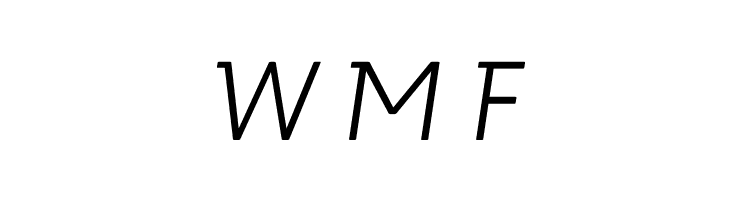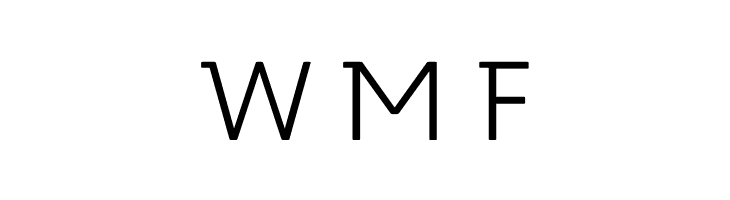
( 7NTypes - Situjuh Nazara - 7ntypes.com )
A playful, casual font with rounded edges and a slightly condensed form.
( 7NTypes - Situjuh Nazara - 7ntypes.com )
A modern, geometric light italic font with angular lines.
( Alan Prescott - prescottdesignshop.com )
A sleek, ultra-light font with a modern, minimalist design.
( Alan Prescott - prescottdesignshop.com )
A sleek, ultra-light, and modern font with a subtle slant and minimalistic design.
( Alan Prescott - prescottdesignshop.com )
A sleek, ultra-light font with a modern, geometric style.
( Antipixel - Julia Martínez Diana - www.antipixel.com.ar/ )
A light, handwritten-style font with thin strokes and a slight slant.
( Antipixel - Julia Martínez Diana - www.antipixel.com.ar/ )
A delicate, condensed, and light italic font with a graceful and dynamic appearance.
( Antipixel - Julia Martínez Diana - www.antipixel.com.ar/ )
A slender, condensed, and light font with an elegant and minimalistic design.
( Antipixel - Julia Martínez Diana - www.antipixel.com.ar/ )
A sleek, ultra-light, and condensed italic font with a modern and minimalist style.
( Antipixel - Julia Martínez Diana - www.antipixel.com.ar/ )
A light, italic serif font with elegant, elongated letters and subtle serifs.
( Antipixel - Julia Martínez Diana - www.antipixel.com.ar/ )
A light, italic serif font with a modern and elegant style.
( Antipixel - Julia Martínez Diana - www.antipixel.com.ar/ )
A light, slab serif font with elongated strokes and thin serifs.
( Antipixel - Julia Martínez Diana - www.antipixel.com.ar/ )
A light, elegant, and slightly italic font with a modern and fluid style.
( Anton Schilli - www.antonschilli.de )
A sleek, ultra-light, modern font with a geometric and minimalist design.
( Atle Mo - www.subtlepatterns.com/ )
An ultra-light, minimalist sans-serif font with thin, elegant strokes.
( Chen Yining )
A sleek, modern, light italic font with smooth curves and consistent stroke width.
( Chen Yining )
A clean, modern sans-serif font with a light weight and minimalistic design.
( DJB Fonts - Darcy Baldwin - darcybaldwin.com )
A playful, hand-drawn font with tall, narrow letters and whimsical strokes.
A modern, light, sans-serif font with geometric and minimalist design.
( Dom )
A modern, light slab serif font with a clean and elegant design.
( Duarte - Delfina Duarte - www.delfinah.carbonmade.com )
A whimsical and decorative font with playful flourishes and light strokes.
( Eran Waldeck )
A sleek, elongated font with a modern and minimalist design.
( Flö Rastbichler - www.elopedthought.com )
A modern, light, and italic slab serif font with elegant and fluid characteristics.
( Freshfish - Jesús González García - freshfish.es/ )
A modern, light sans-serif font with clean lines and excellent readability.
( Genilson L. Santos )
A sleek, modern, light italic sans-serif font with elegant slant and clean lines.
( Genilson L. Santos )
A modern, light sans-serif font with clean lines and balanced spacing.
( Henry Paúl Sánchez Cuarán - www.facebook.com/mcpulk )
An ultra-light, line-based font with minimalistic and elegant design.
( JBFoundry - Jean Boyault - jean.boyault.pagesperso-orange.fr/ )
A light, handwritten font with thin, flowing strokes and a casual elegance.
( Jef Triforce - Francisco Arellano - www.ixipcalli.com )
A modern, light, and italic font with clean lines and elegant curves.
( Jef Triforce - Francisco Arellano - www.ixipcalli.com )
A modern, light sans-serif font with clean lines and balanced spacing.
( Jef Triforce - Francisco Arellano - www.ixipcalli.com )
A playful and whimsical font with rounded, slightly irregular letterforms.
( Jens Cherukad )
A futuristic, dotted font with a pixelated, ultra-light design.
( K. Bishop Martinez )
A modern, elegant font with clean lines and slight curvature.